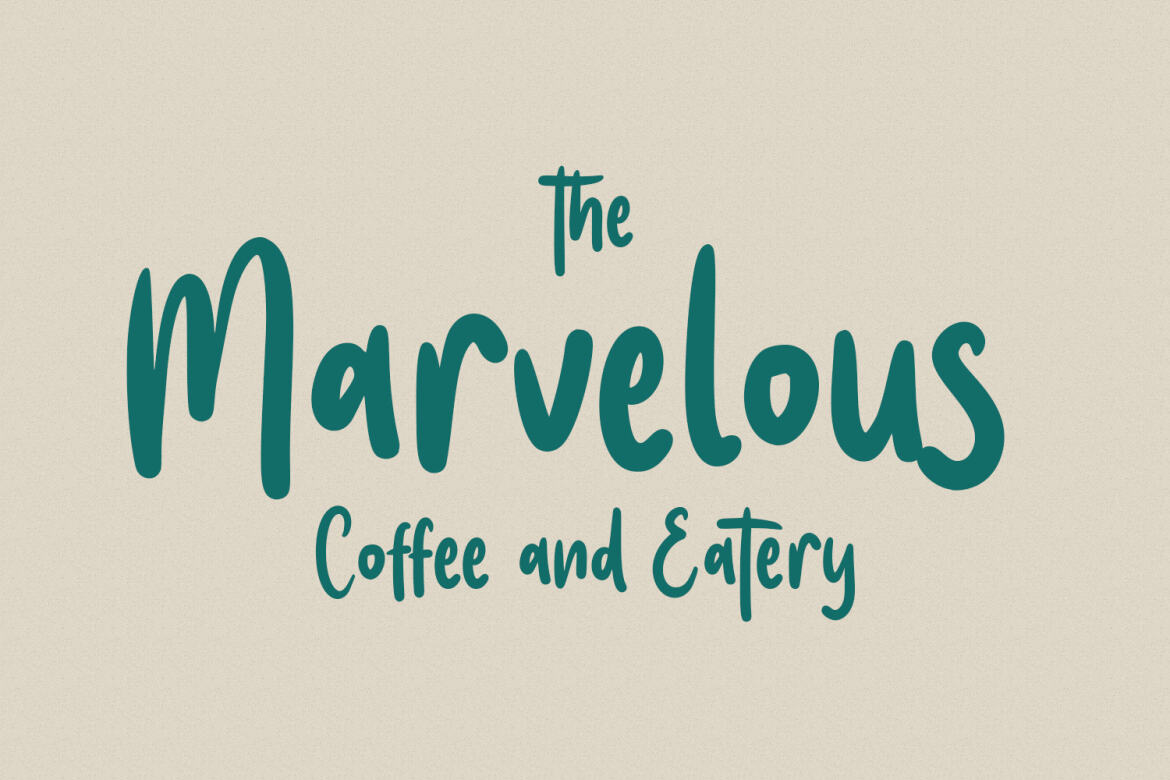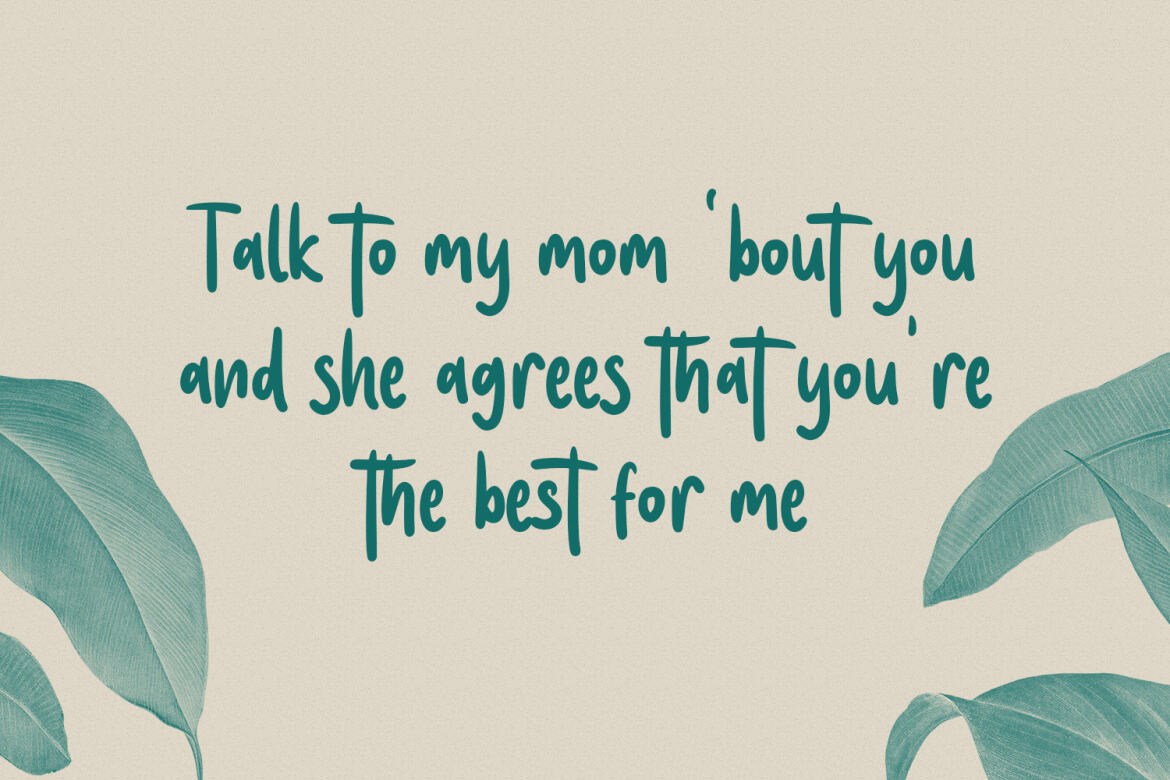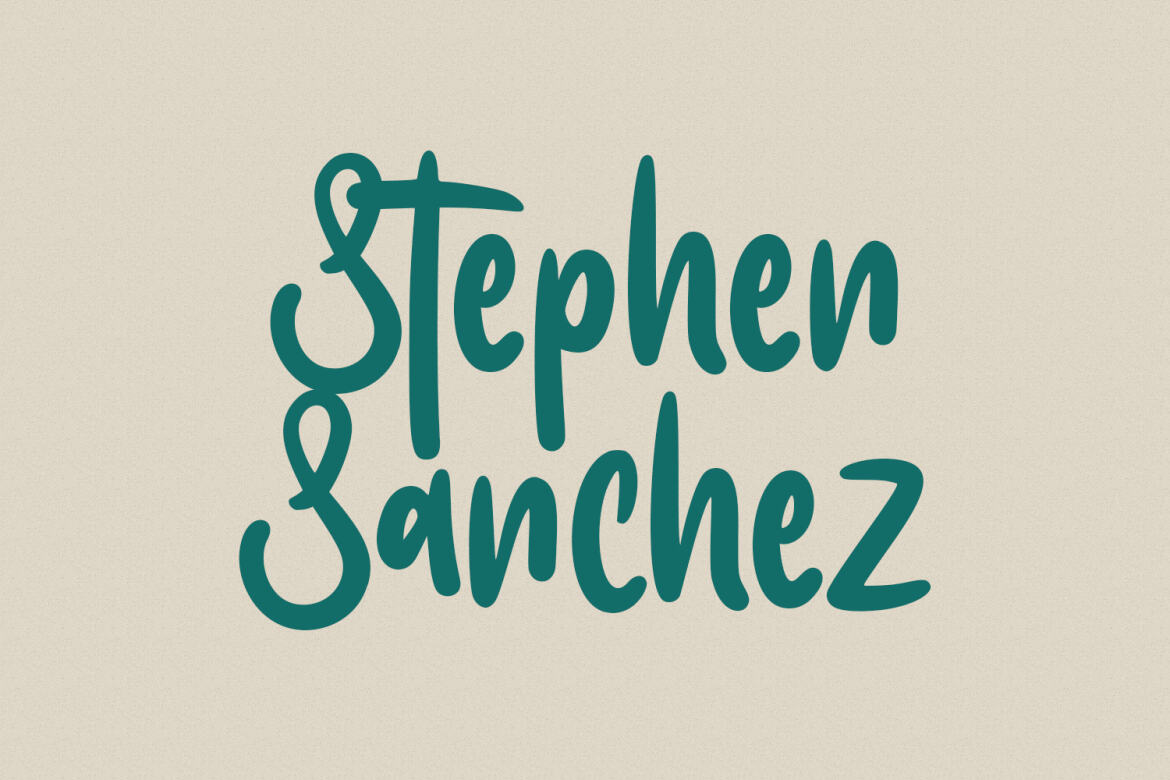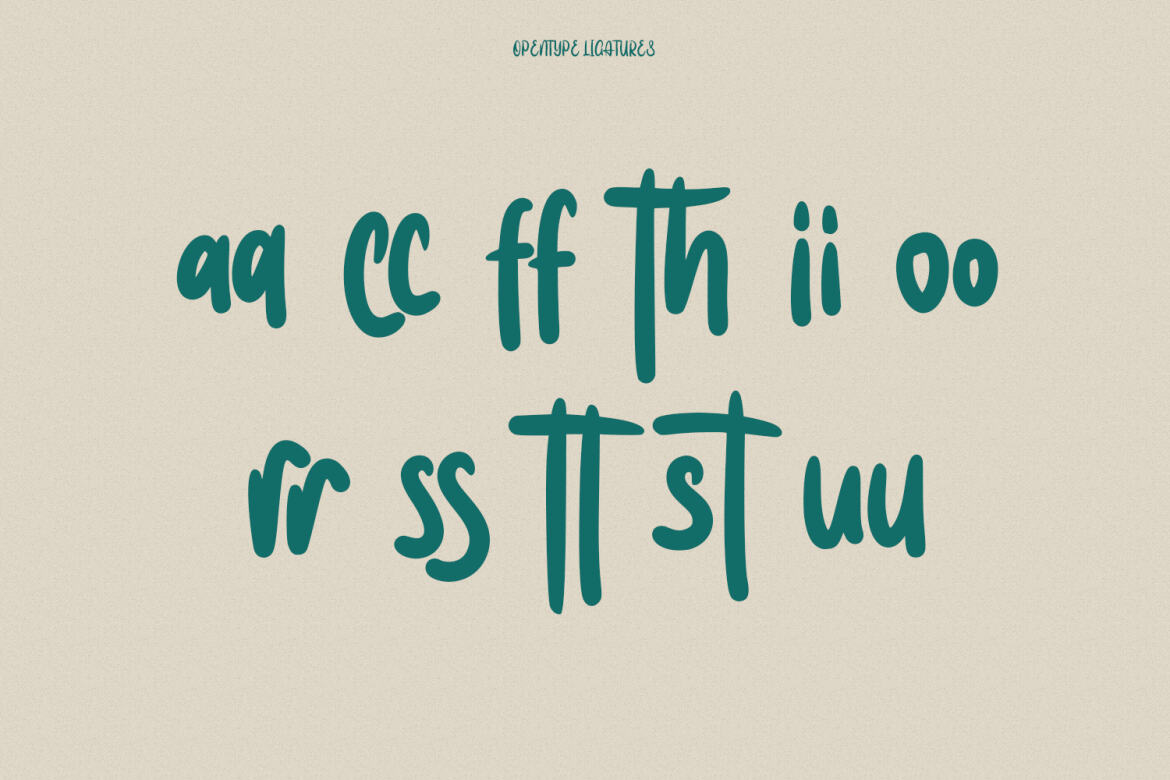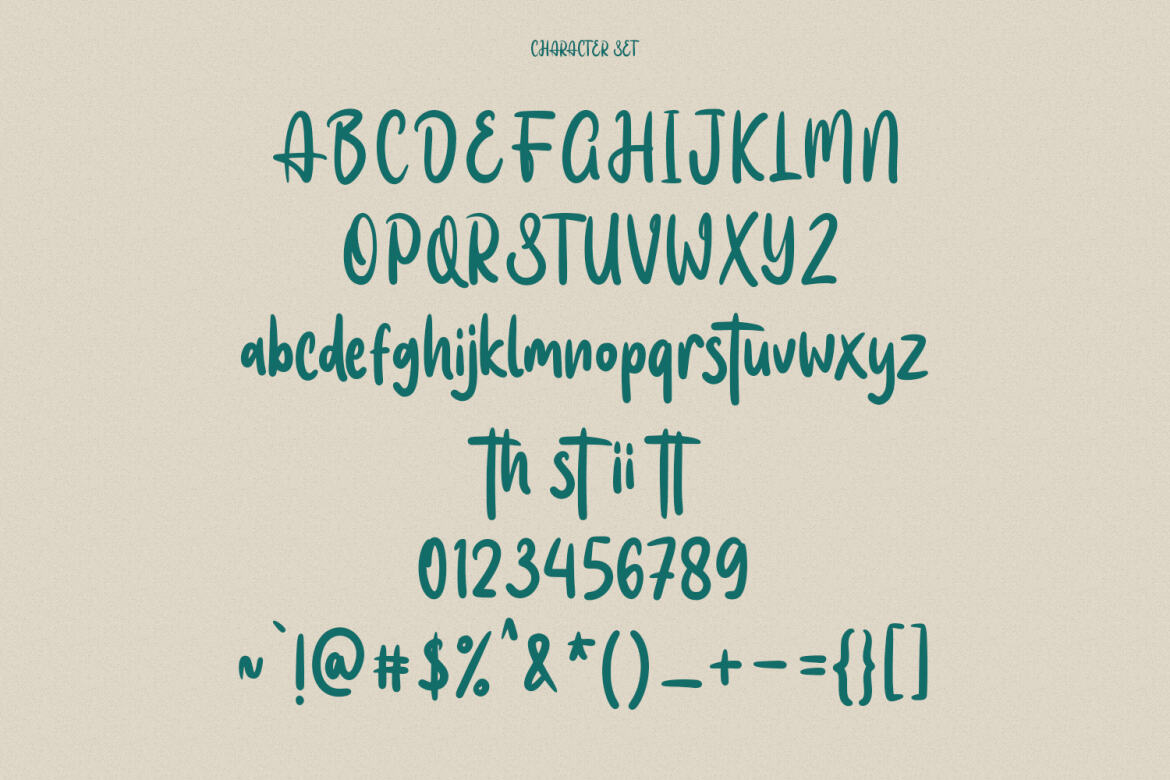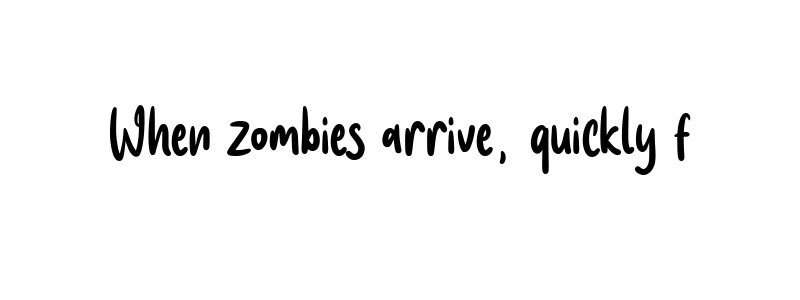
Lostropis FREE Handwritten Brush Font
Lostropis
Lostropis is a Casual modern script font. With bold stroke, fun character. To give you an extra creative work. Lostropis font support multilingual more than 100+ language. This font is good for logo design, Social media, Movie Titles, Books Titles, a short text even a long text letter and good for your secondary text font with sans or serif. Make a stunning work with Lostropis font.